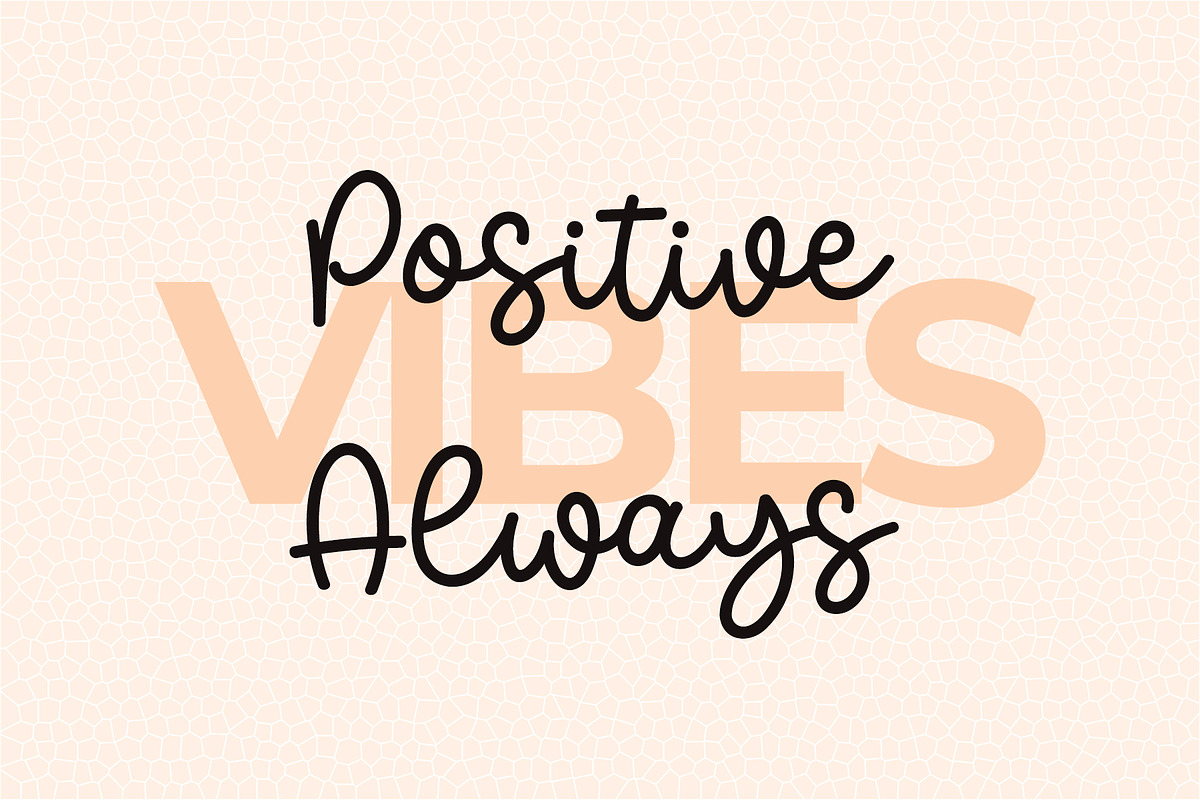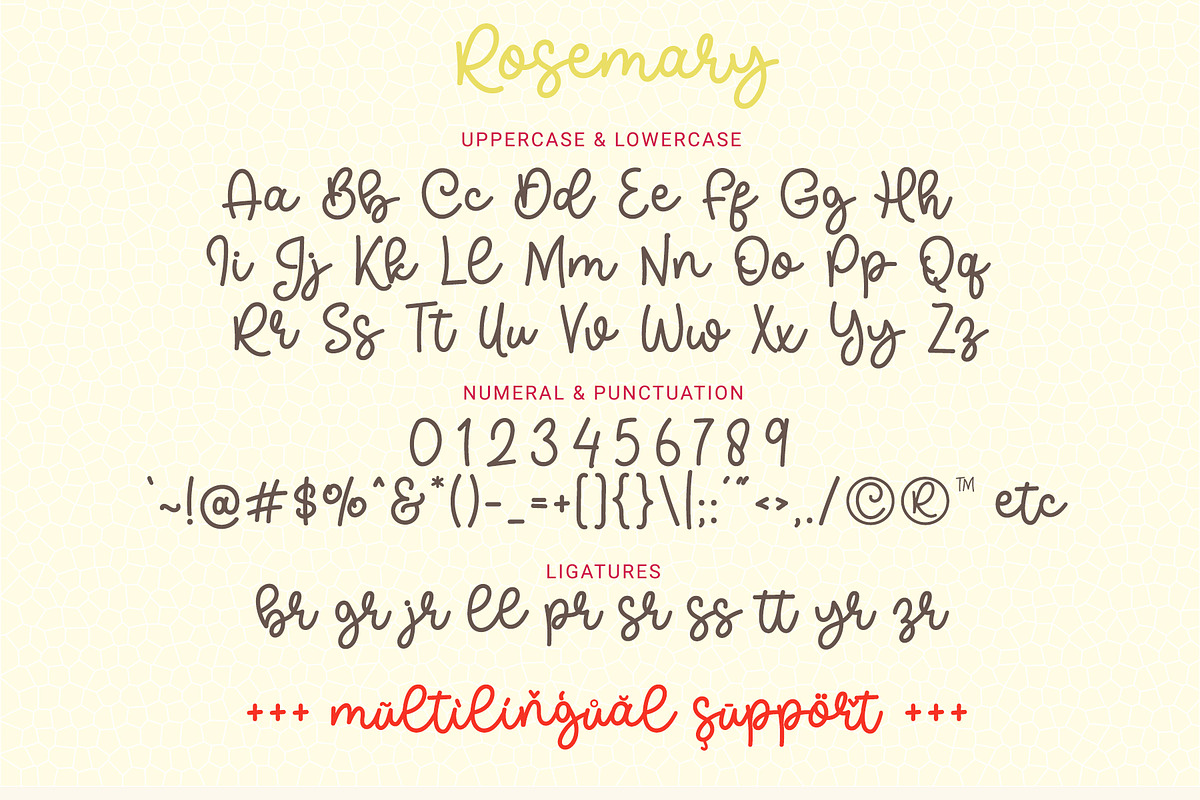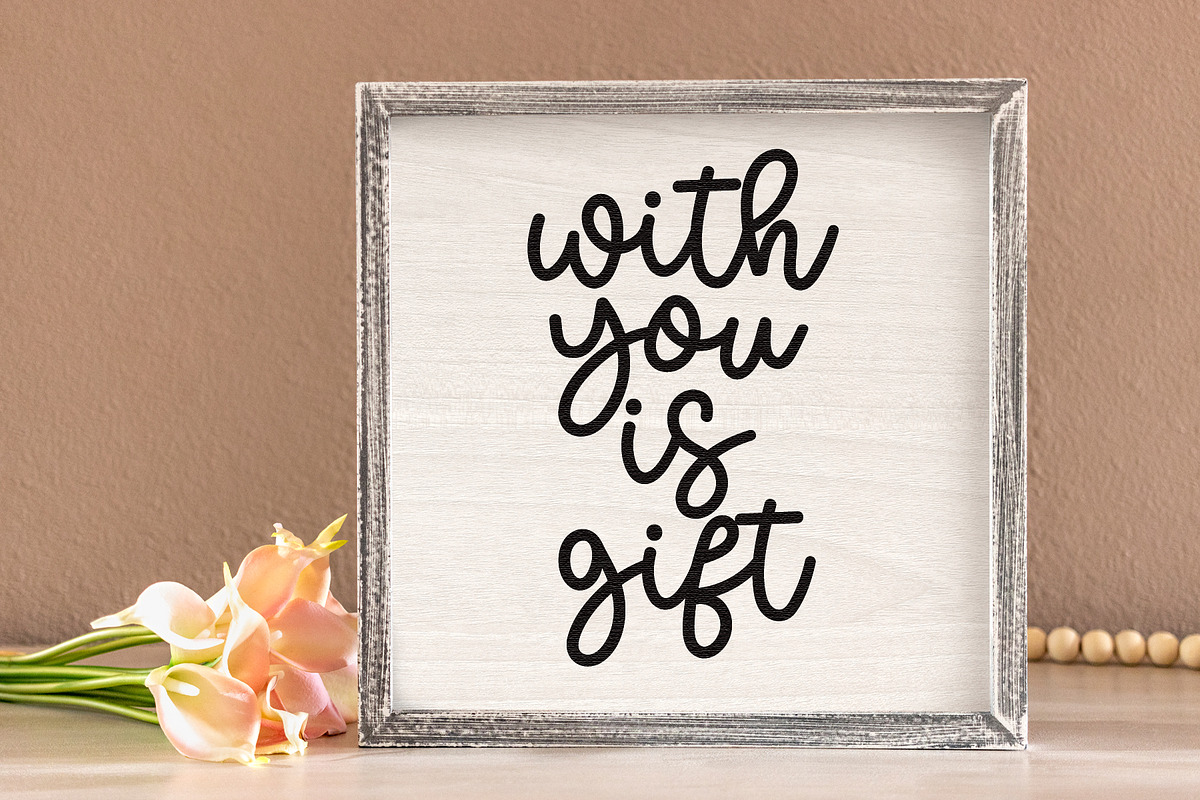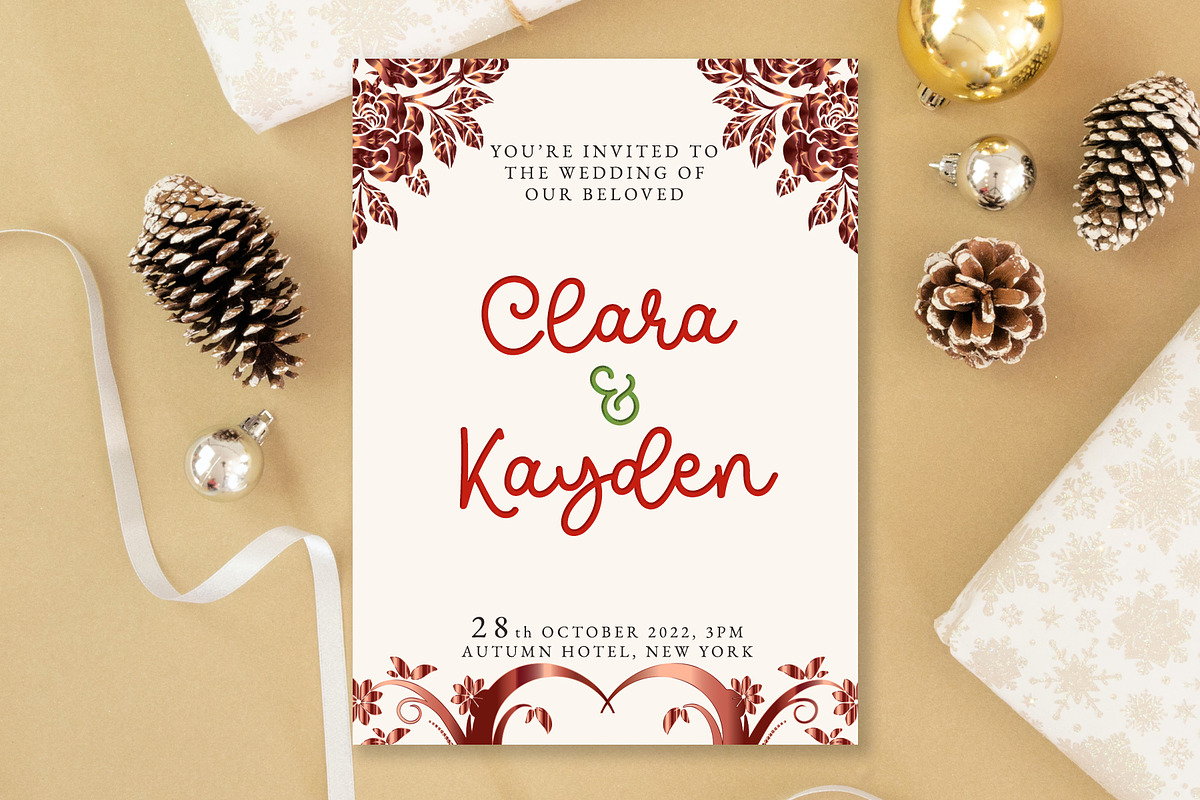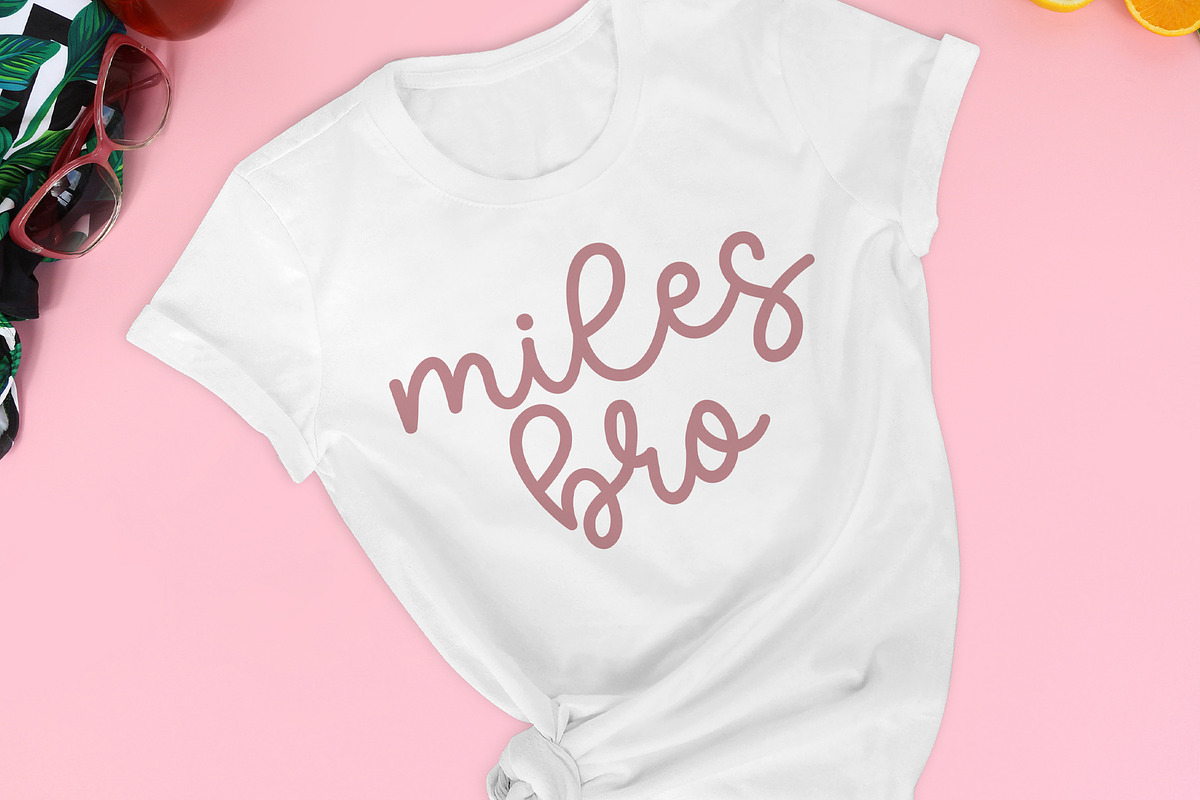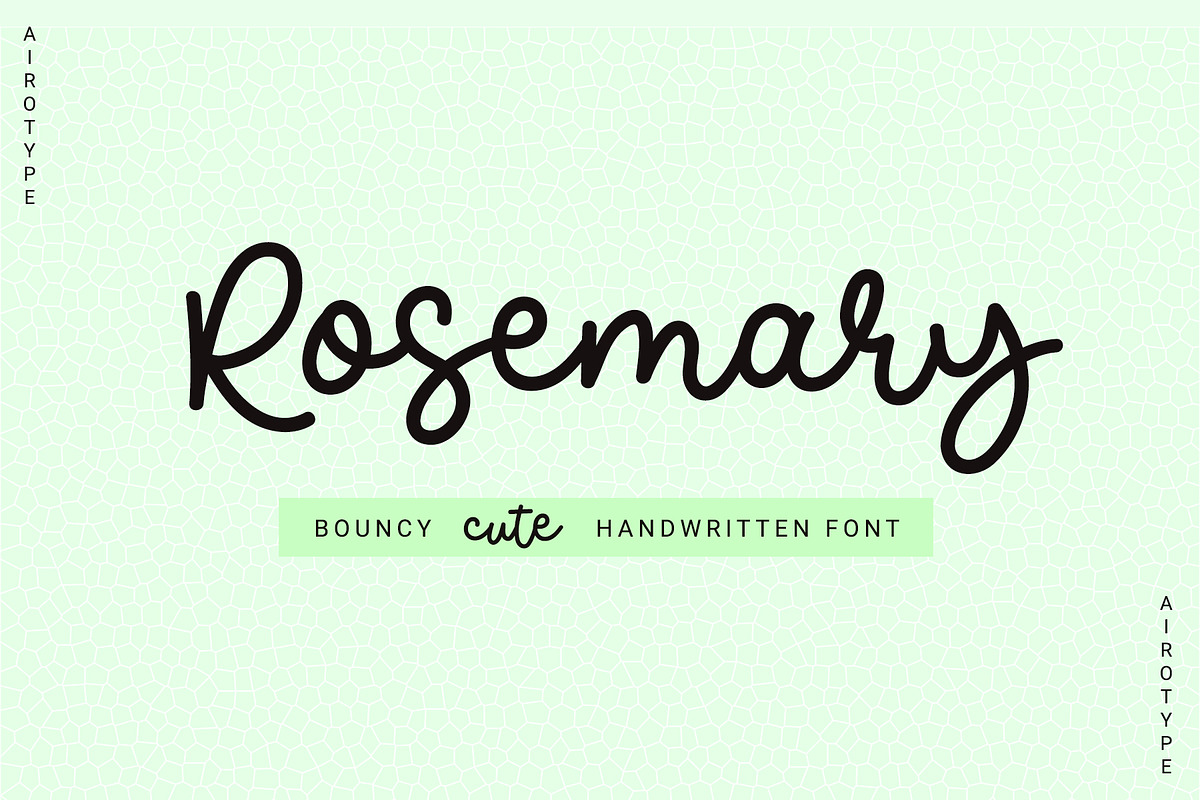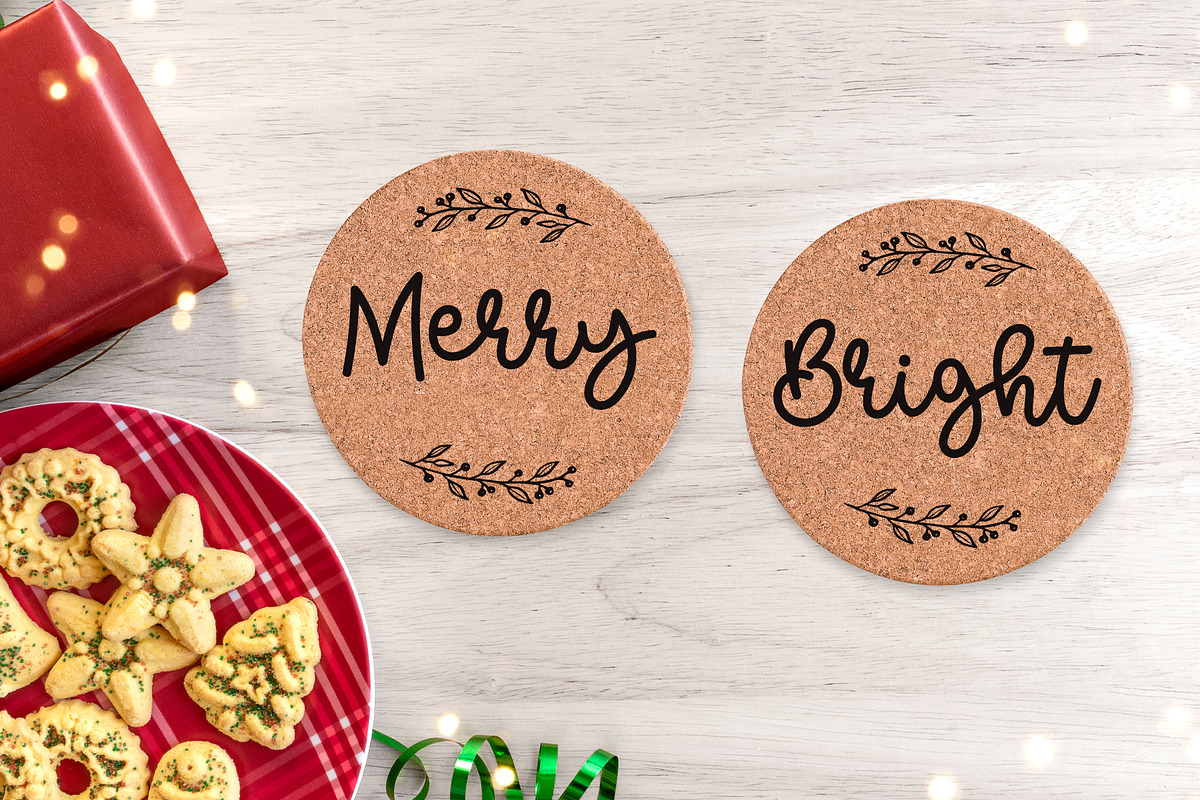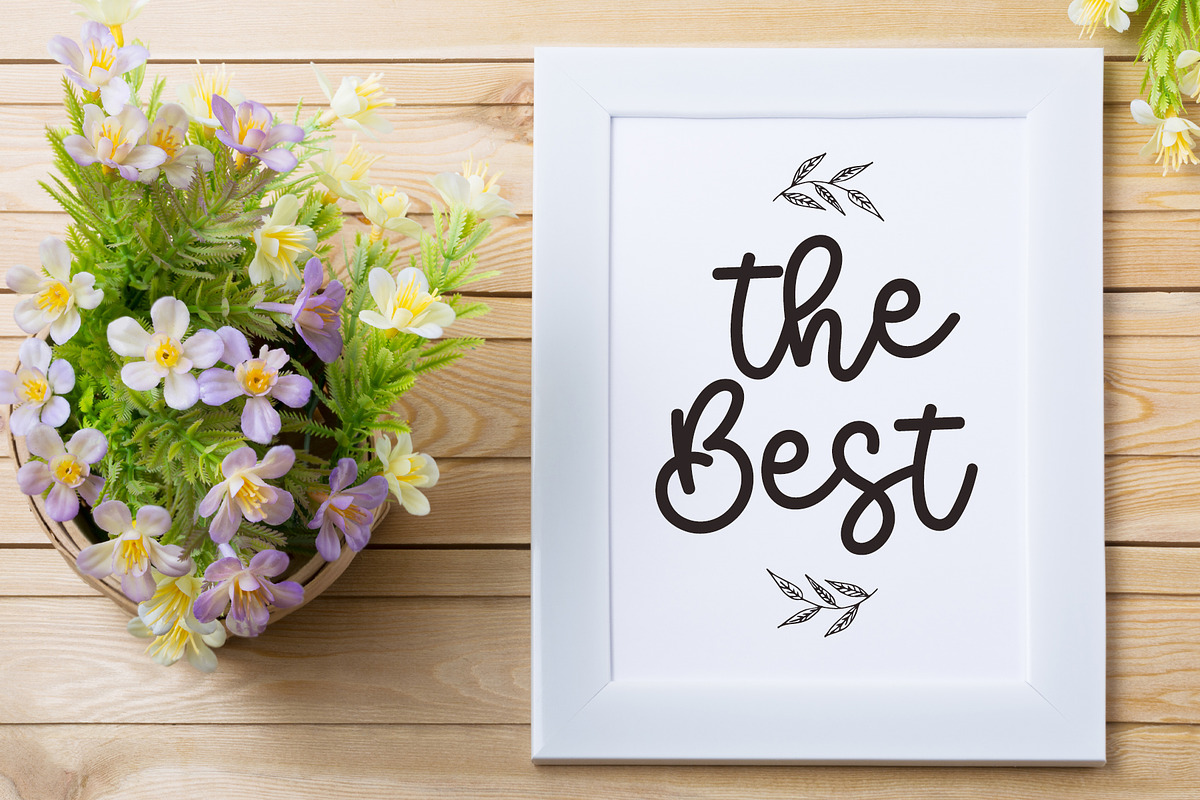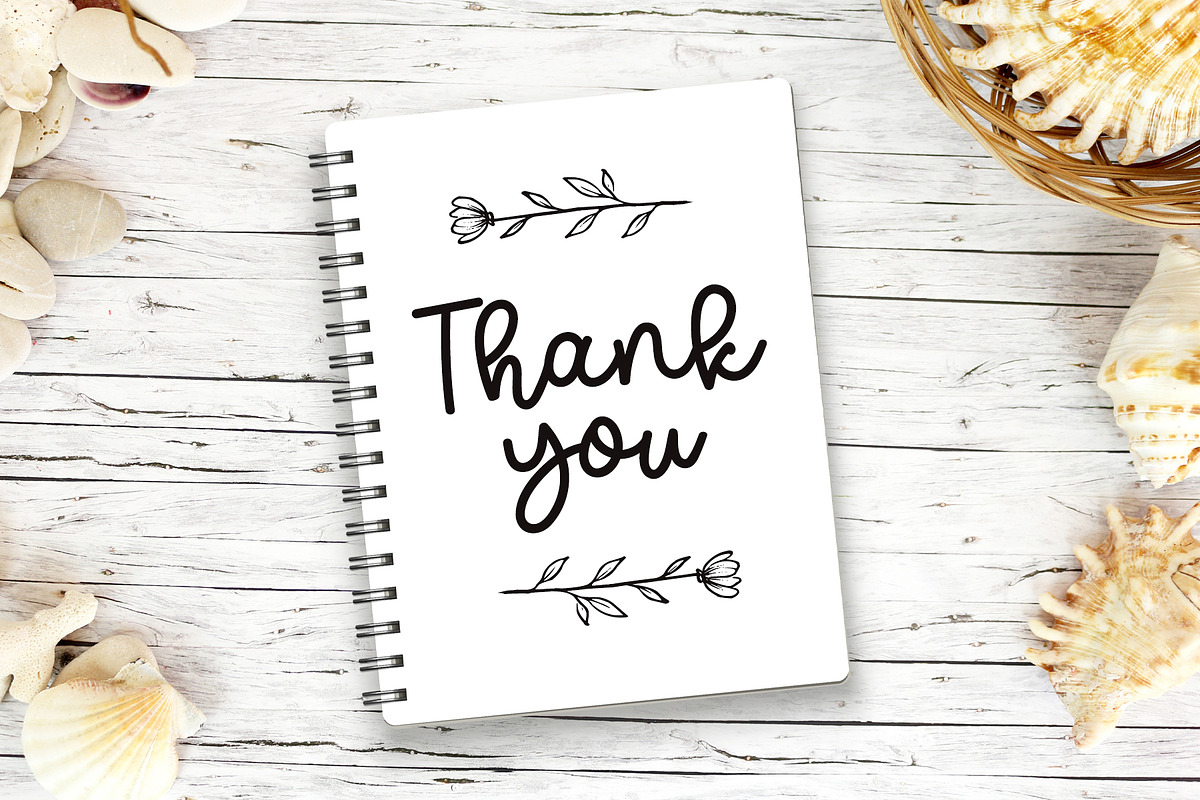
Rosemary - Cute Monoline Font
Rosemary is bouncy, simple, and cute monoline font. Its simplicity made this font can be used for wide ranges of design projects, especially designs that need handwritten and cuteness touch.
Rosemary is perfect font for any projects, such as wedding invitation, t-shirt design, crafting, sticker, sublimation, and many more.
- Most Multilingual Accent